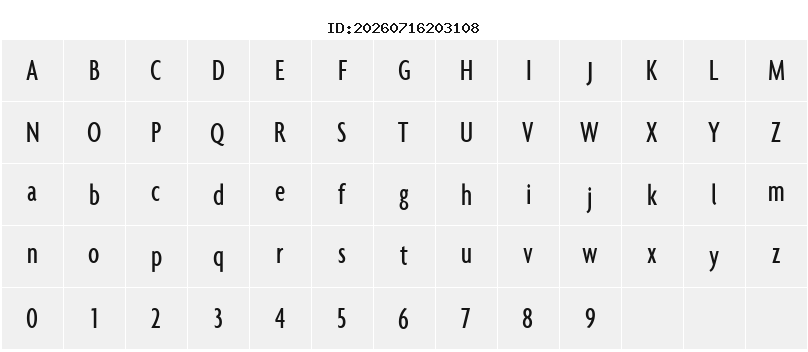
Agenda Preview
• Font Name: Agenda
• Font Style: MediumExtraCondensed
• Full Font Name: Agenda-MediumExtraCondensed
• PostScript Name: Agenda-MediumExtraCondensed
About Agenda.ttf
Agenda.ttf is a modern, elegant sans-serif font designed for ultimate readability and visual harmony. Perfect for branding, headlines, web design, and print materials.